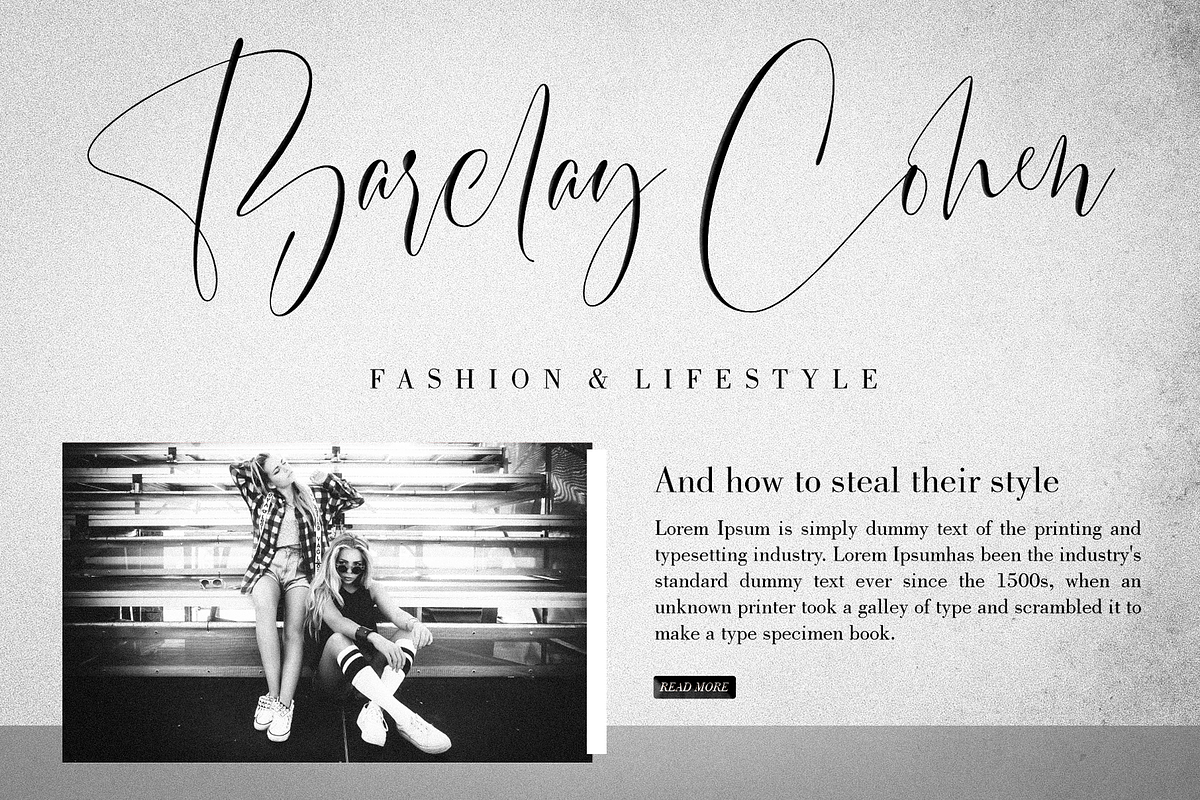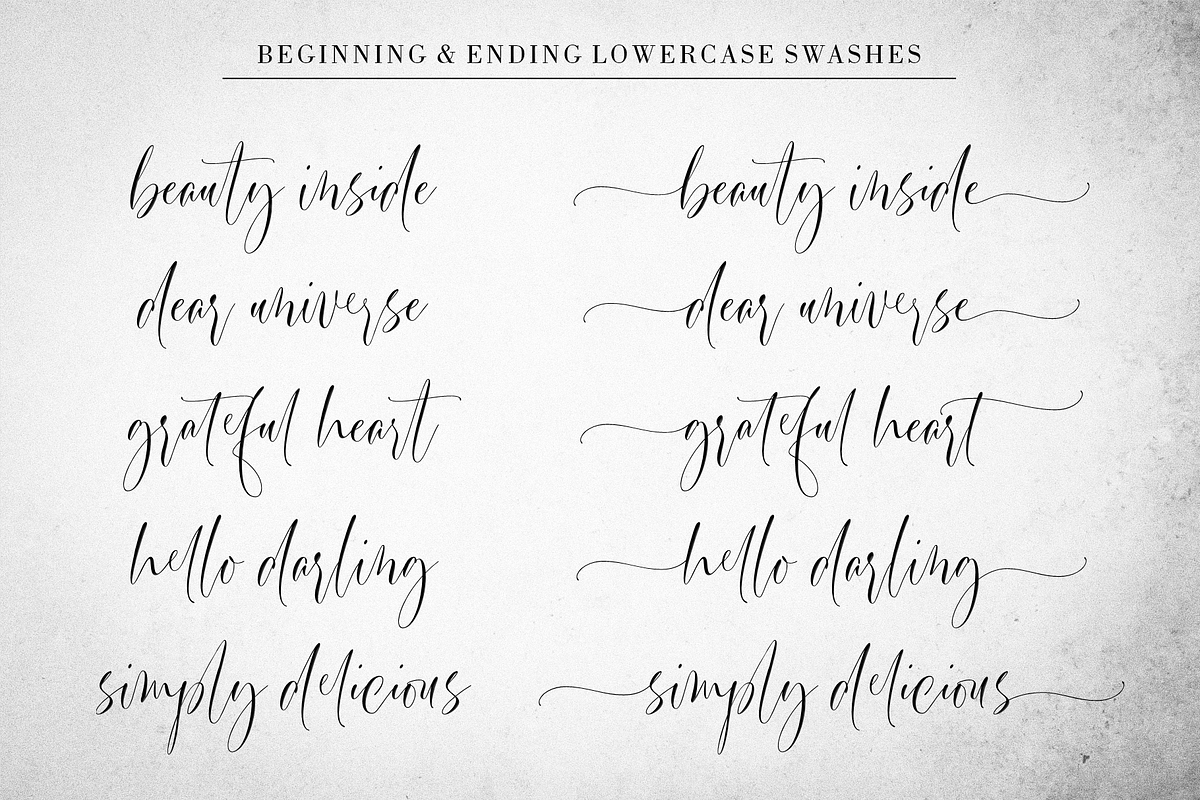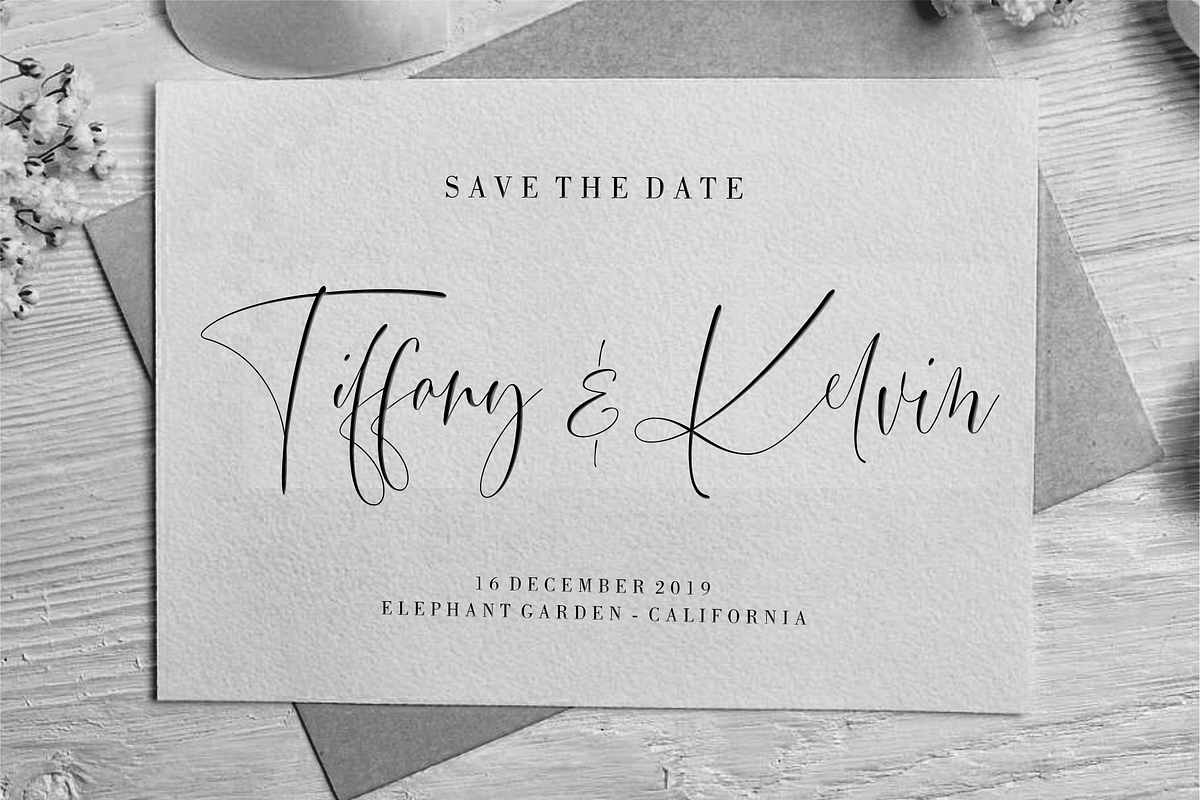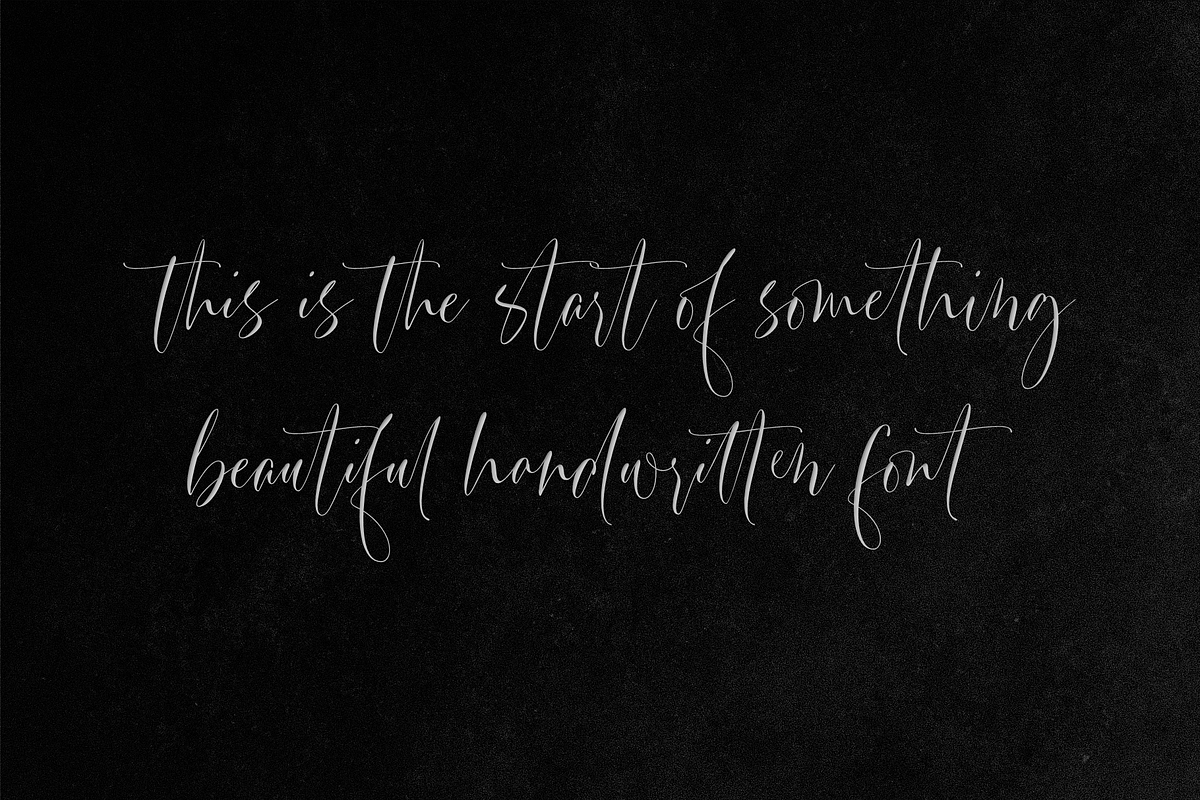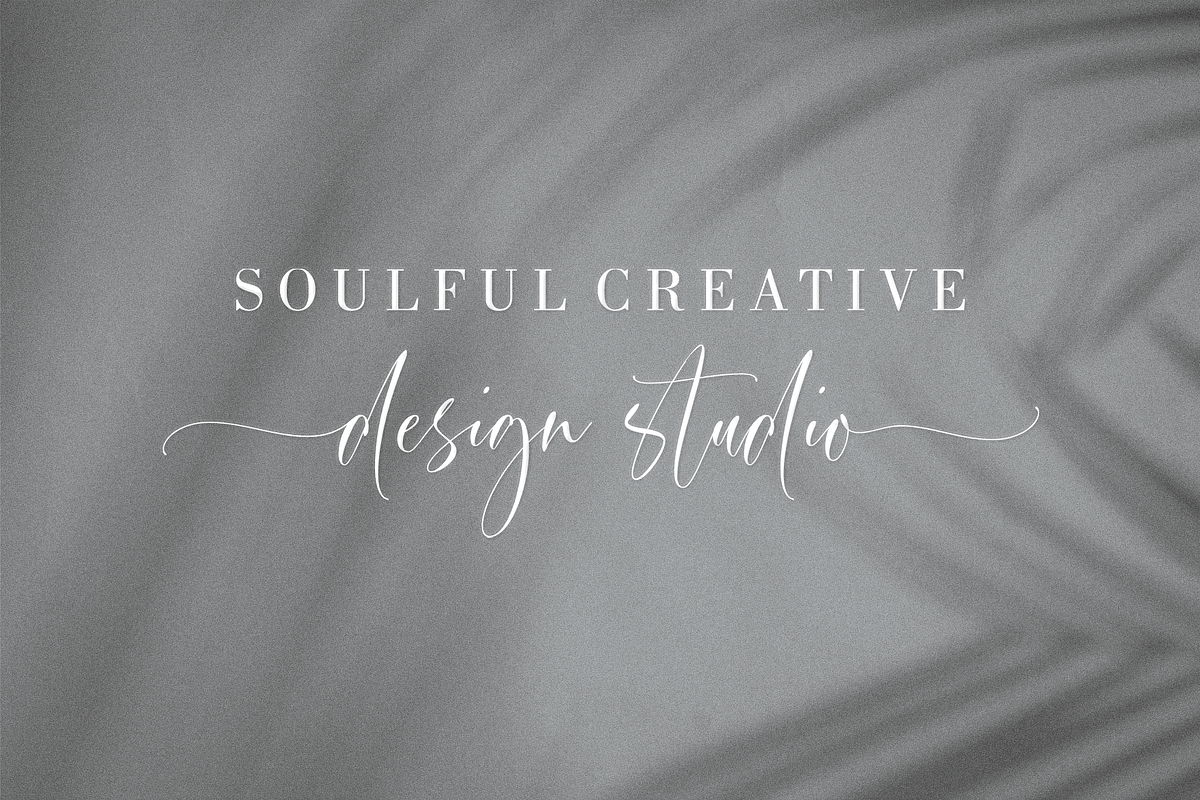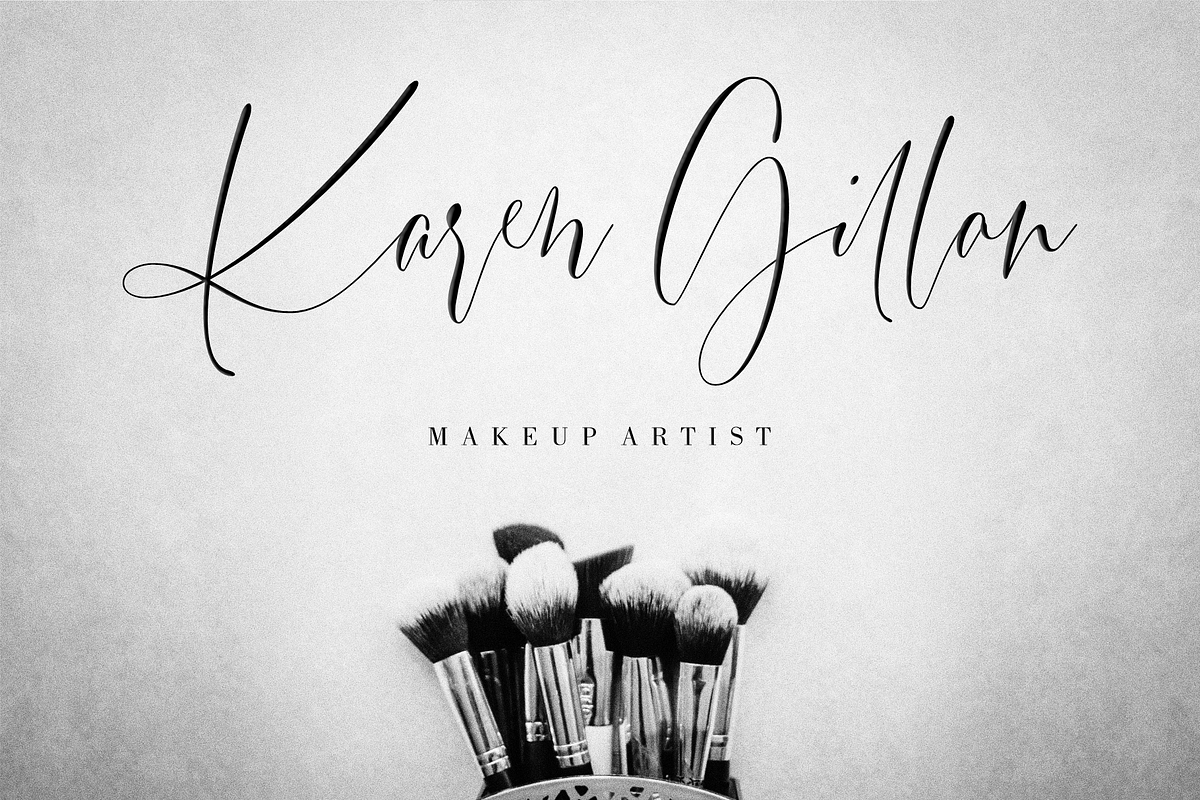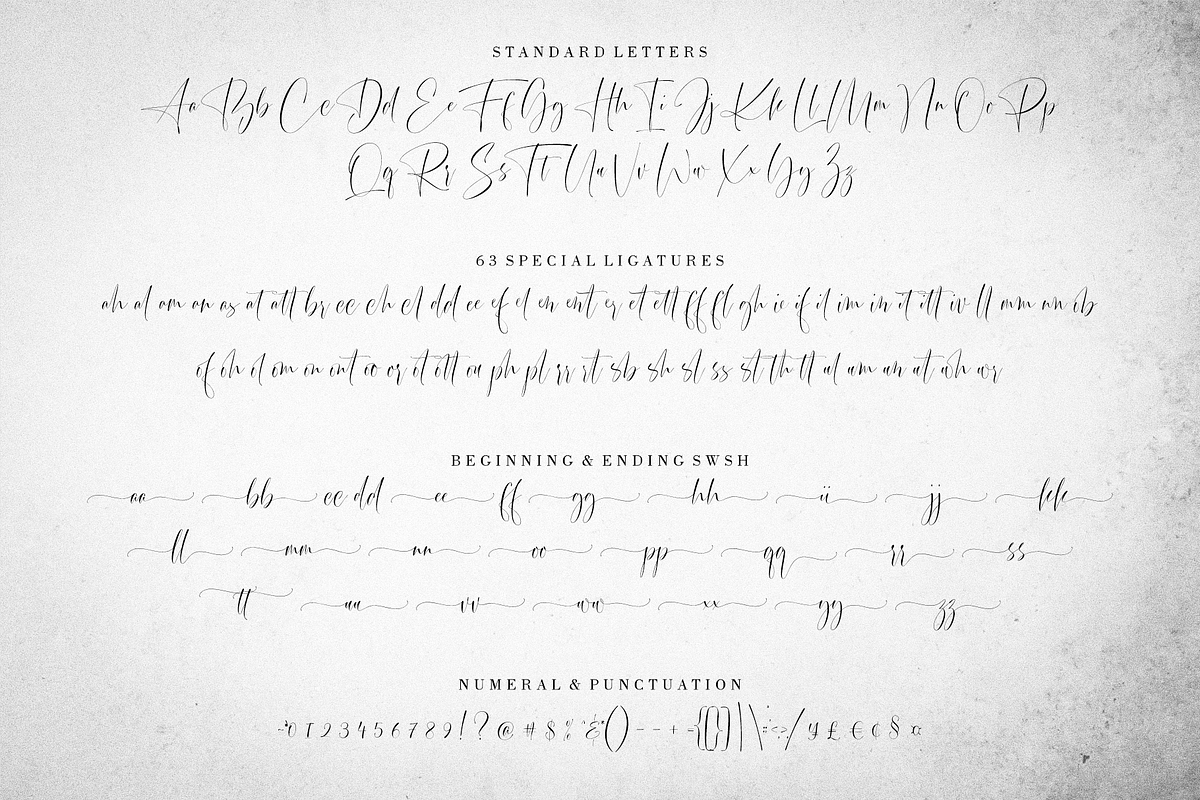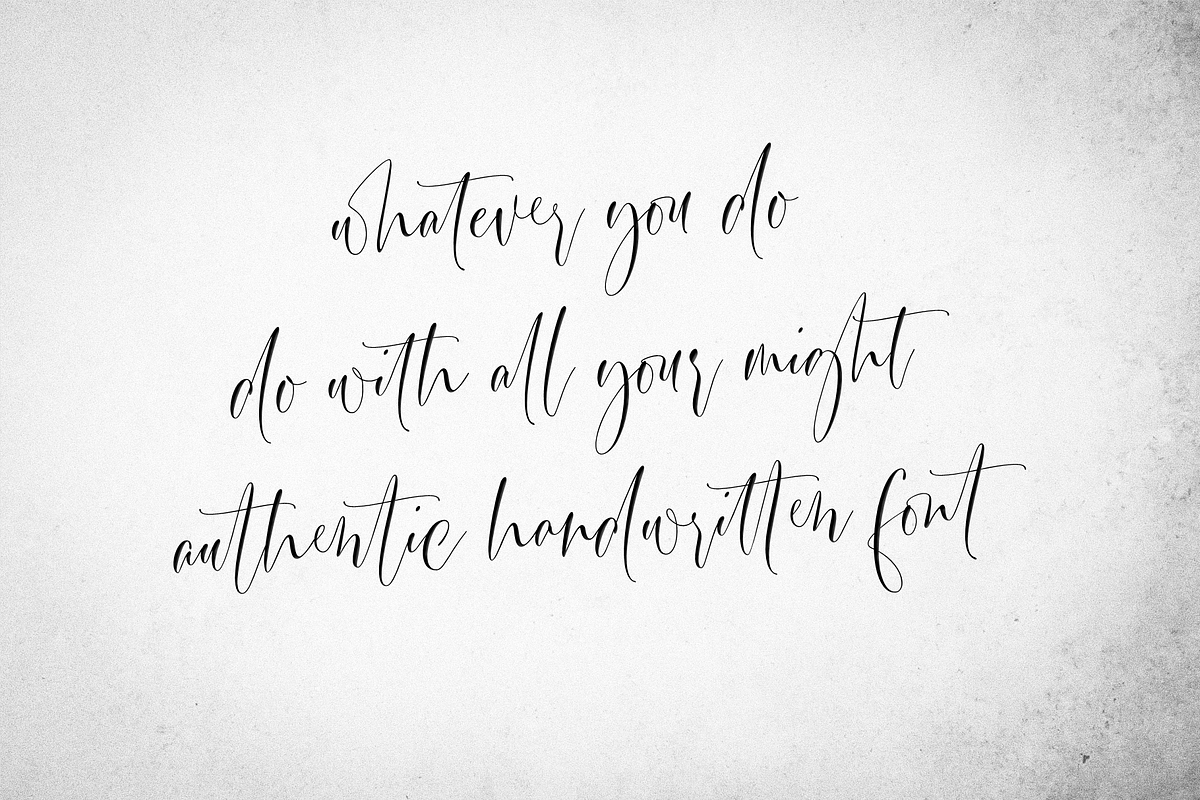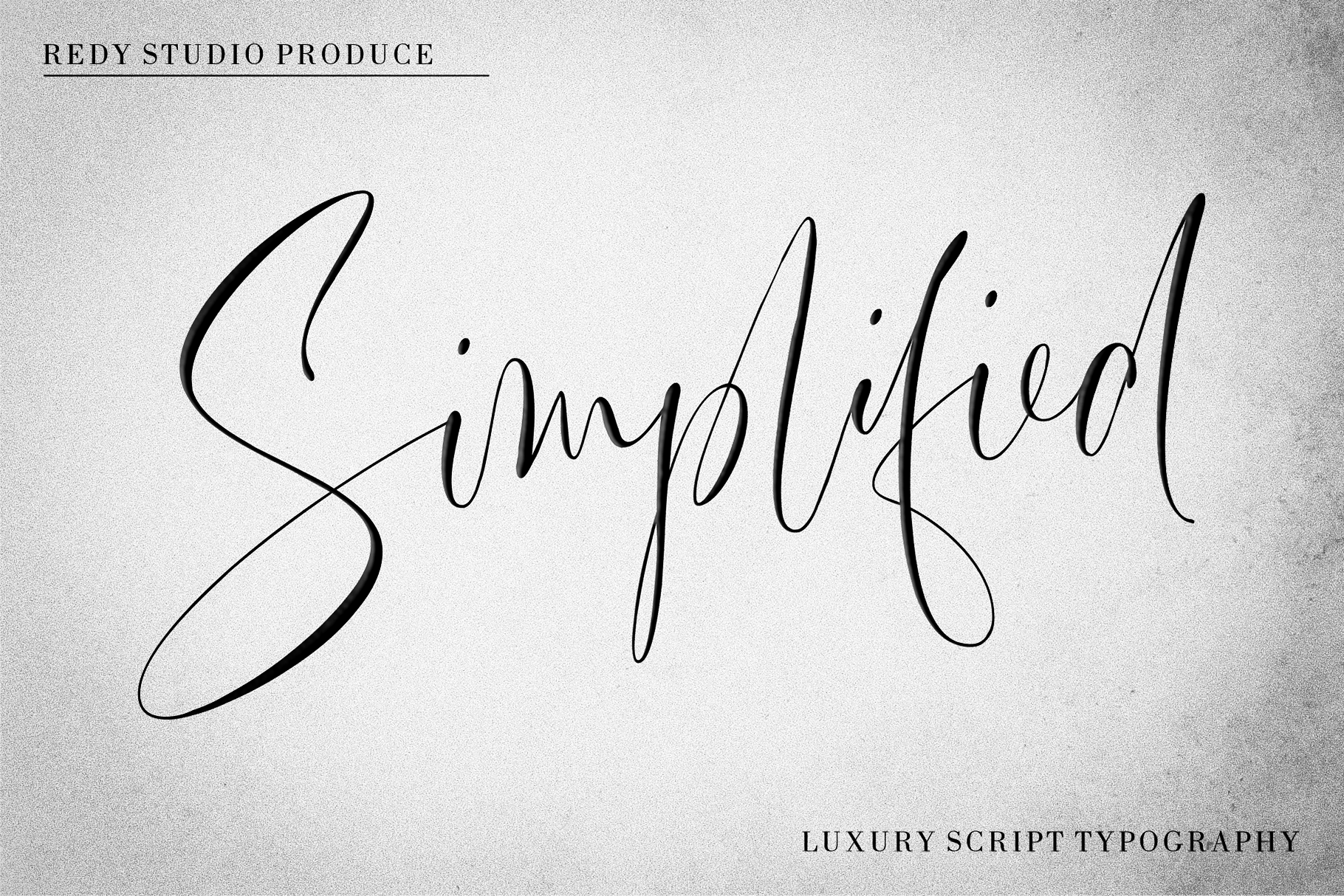
Simplified – Casual Chic Font
Simplified is a casual and natural font, with a spirit of clean-cut modern and classic. This typeface has been specially designed to give a feeling of casual luxury. This is not easy typography! We have done a lot of effort to build this font. In the past, we have experimented with a ton of fonts that are similar to Simplified, and Simplified is better in every aspect that I have found, including some OpenType features and ligatures, lowercase beginning & ending swashes that you can use to make your own style. In short, it’s a typeface that you must have!
Simplified features:
- A full set of upper & lowercase characters
- 63 Gorgeous ligatures
- Lowercase beginning swashes
- Lowercase ending swashes
- Multilingual symbols